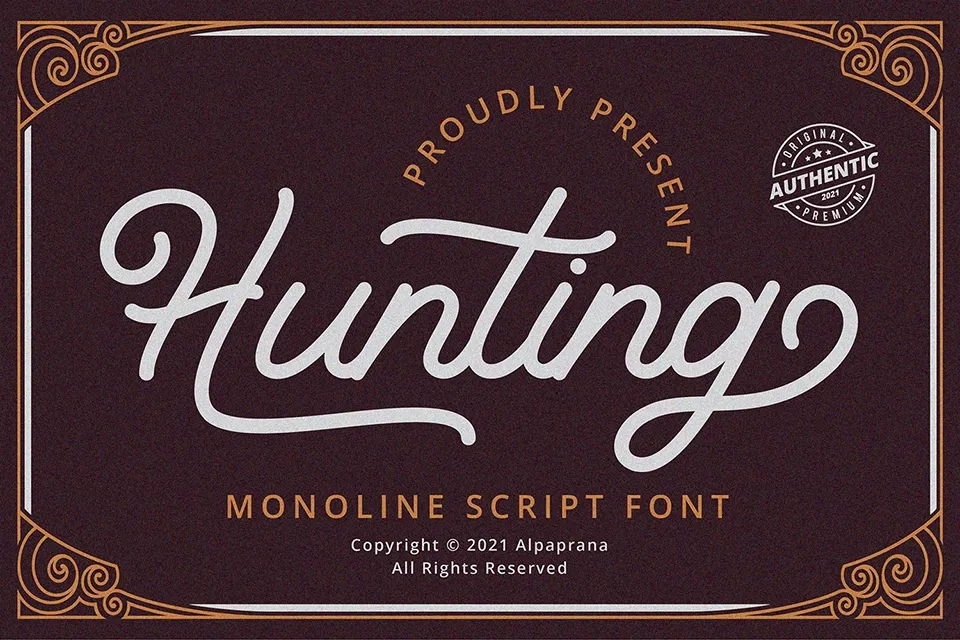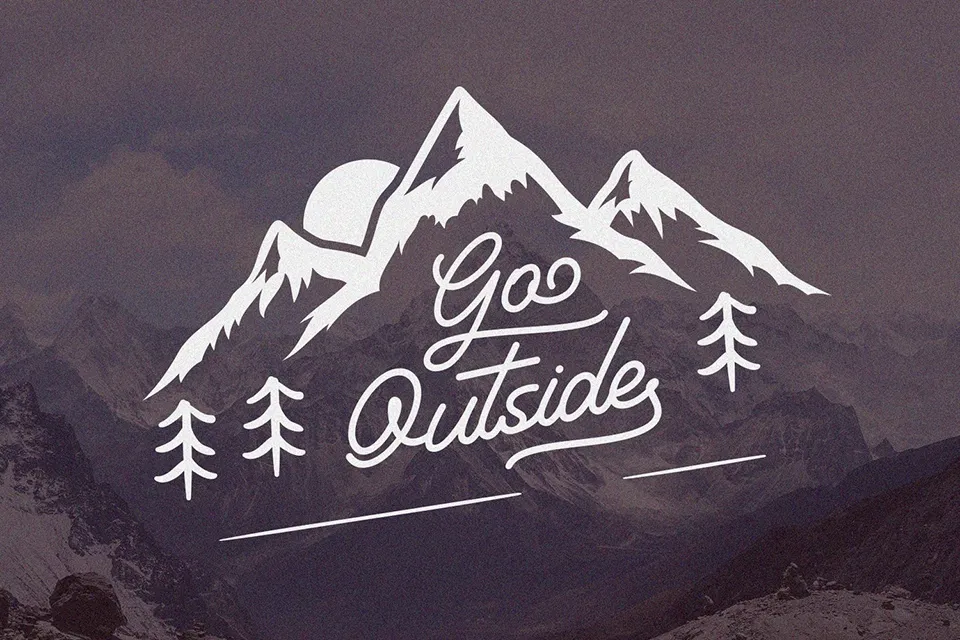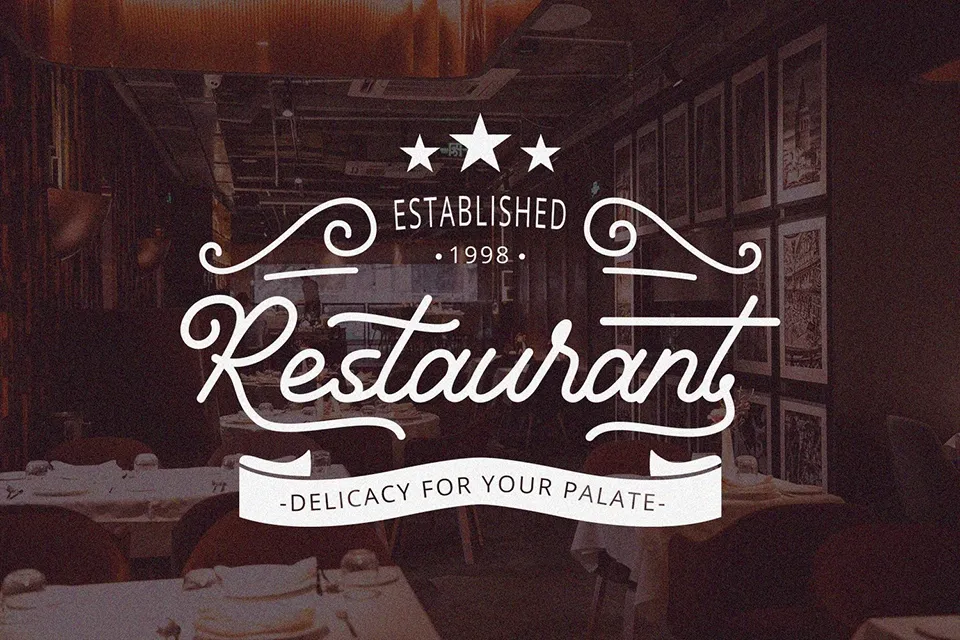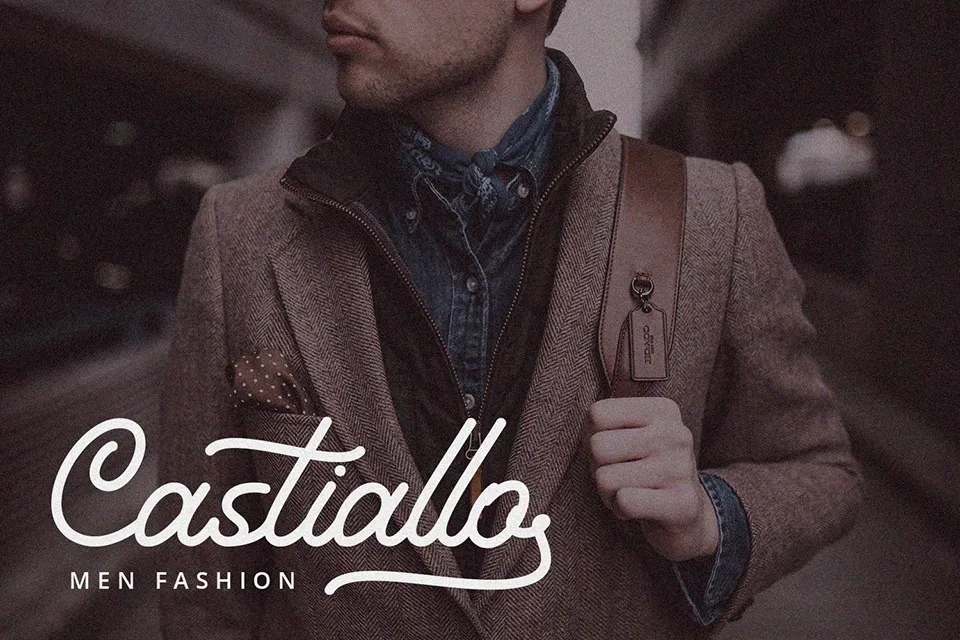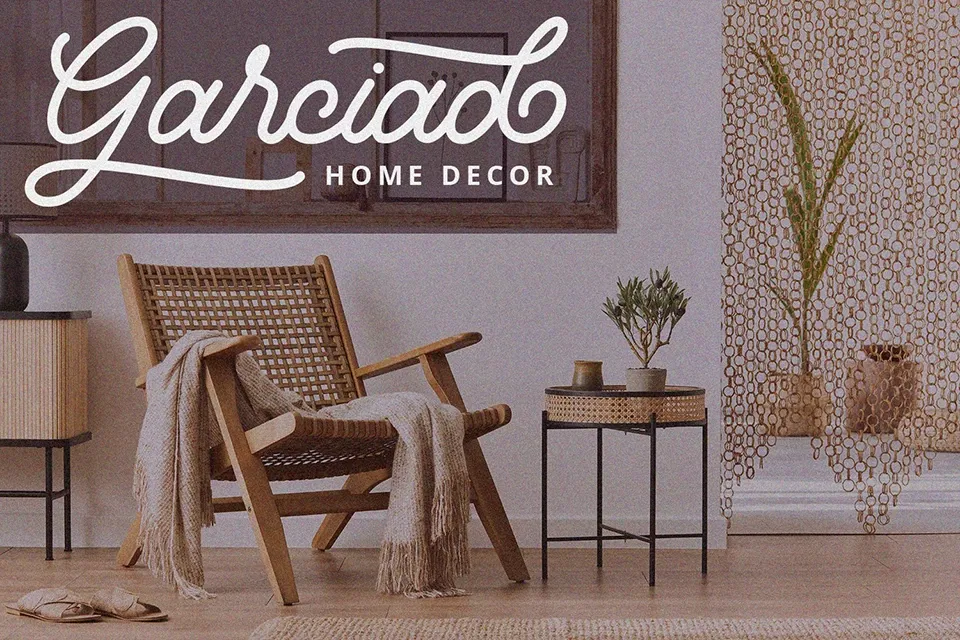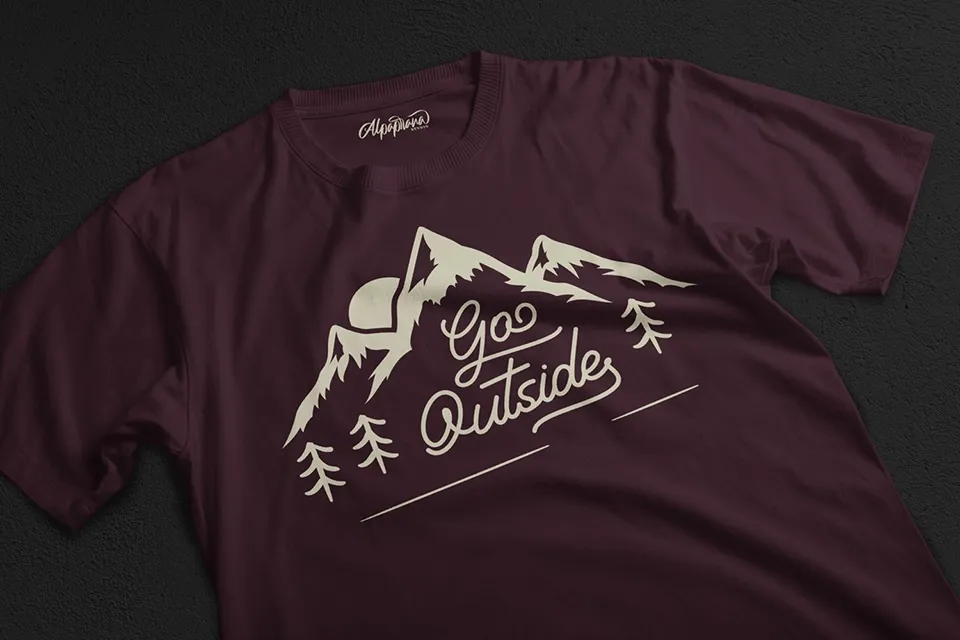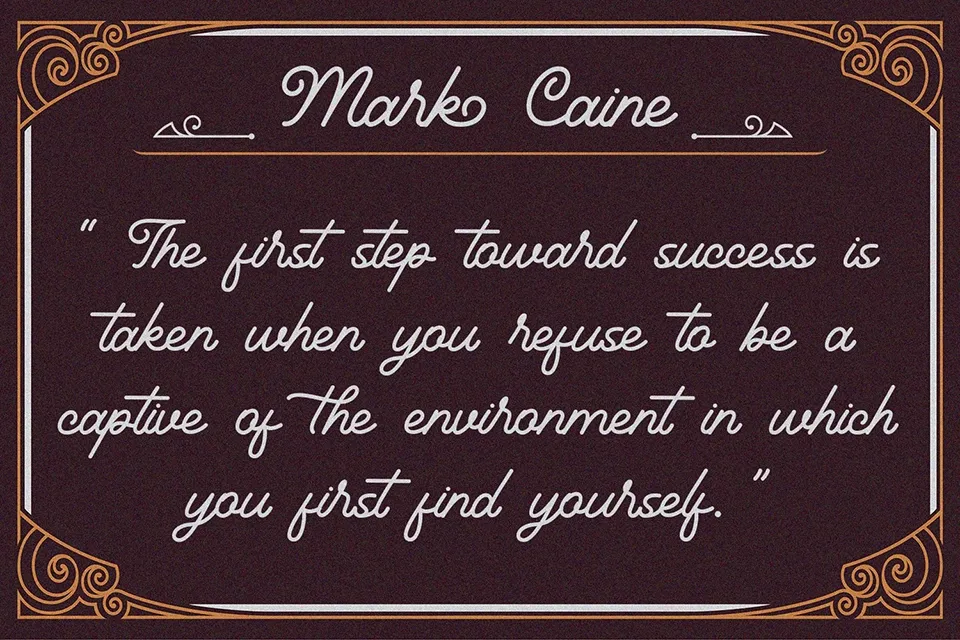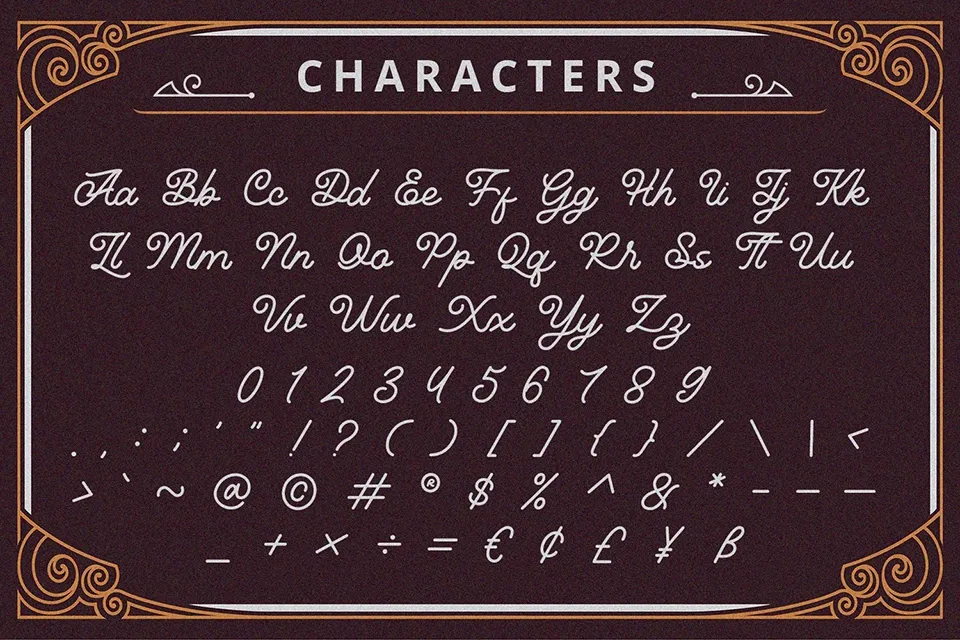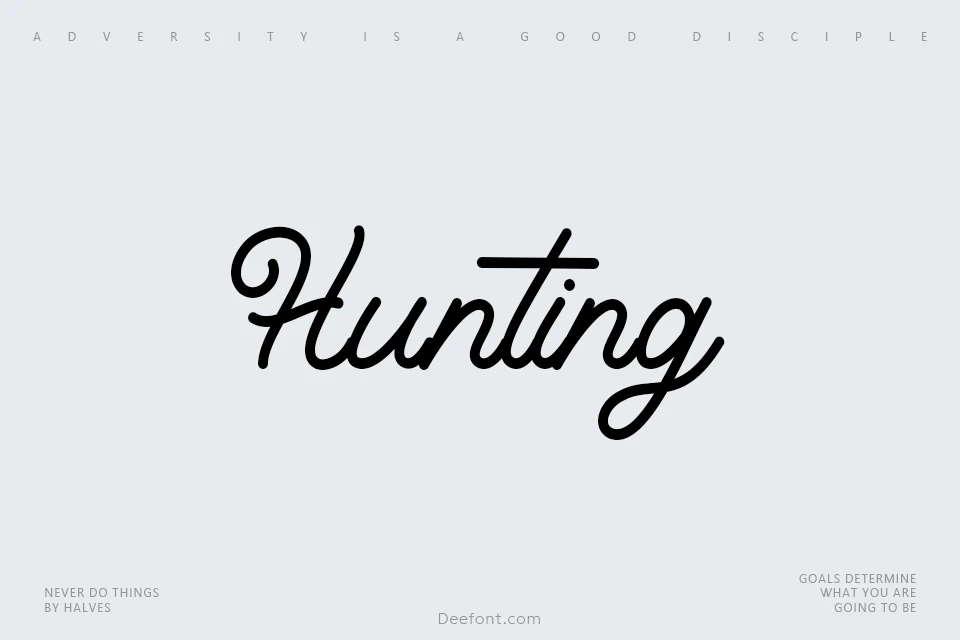
Hunting Font
Hunting Font is a stunning monoline script typeface that combines elegance and vintage charm. Designed with smooth, flowing strokes, it exudes sophistication while maintaining a handcrafted aesthetic. Perfect for branding, logos, invitations, packaging, and signage, Hunting Font adds a timeless and authentic feel to any project. Its clean lines and balanced curves ensure readability while delivering a stylish and professional look. Whether used for formal designs or creative endeavors, this font captures attention with its unique character and versatility. Elevate your designs with Hunting Font—a classic yet modern typeface that embodies authenticity and artistic flair.